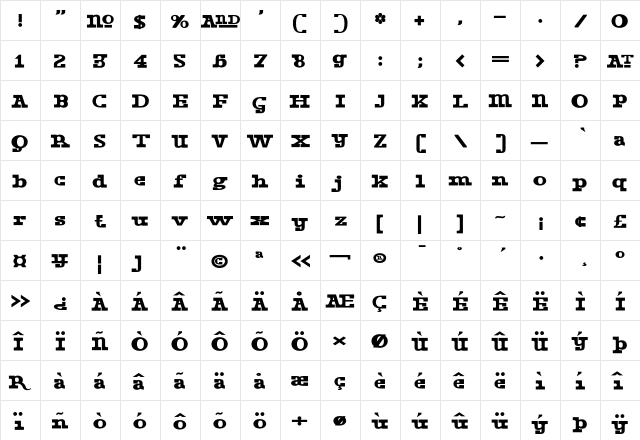
DustPiece Regular
Design Context for DustPiece Typeface
DustPiece is a composed and adaptable typeface that performs quietly and consistently across a wide range of design contexts.